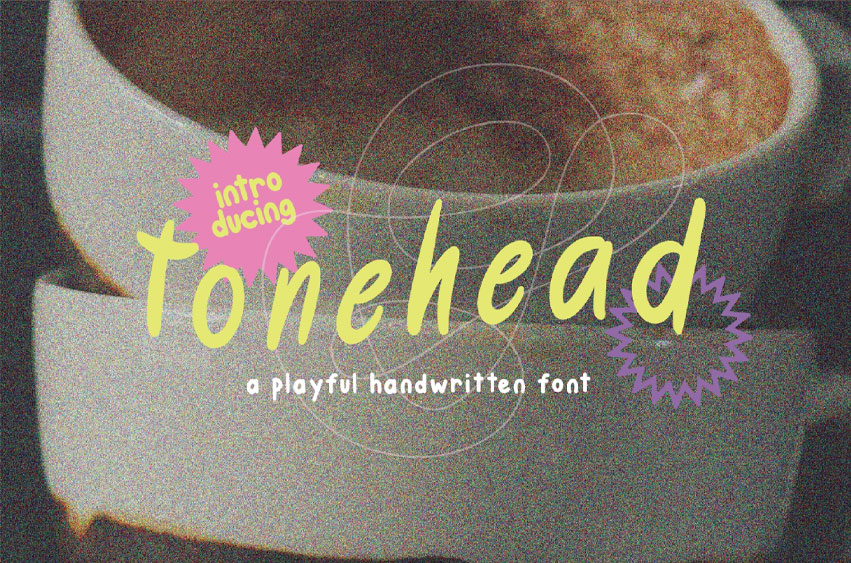
Tonehead Font is a playful display font bursting with energy and creativity.
Its bold letterforms and quirky style make it perfect for posters, branding, packaging, children’s books, and any project that needs a fun, vibrant, and attention-grabbing touch.